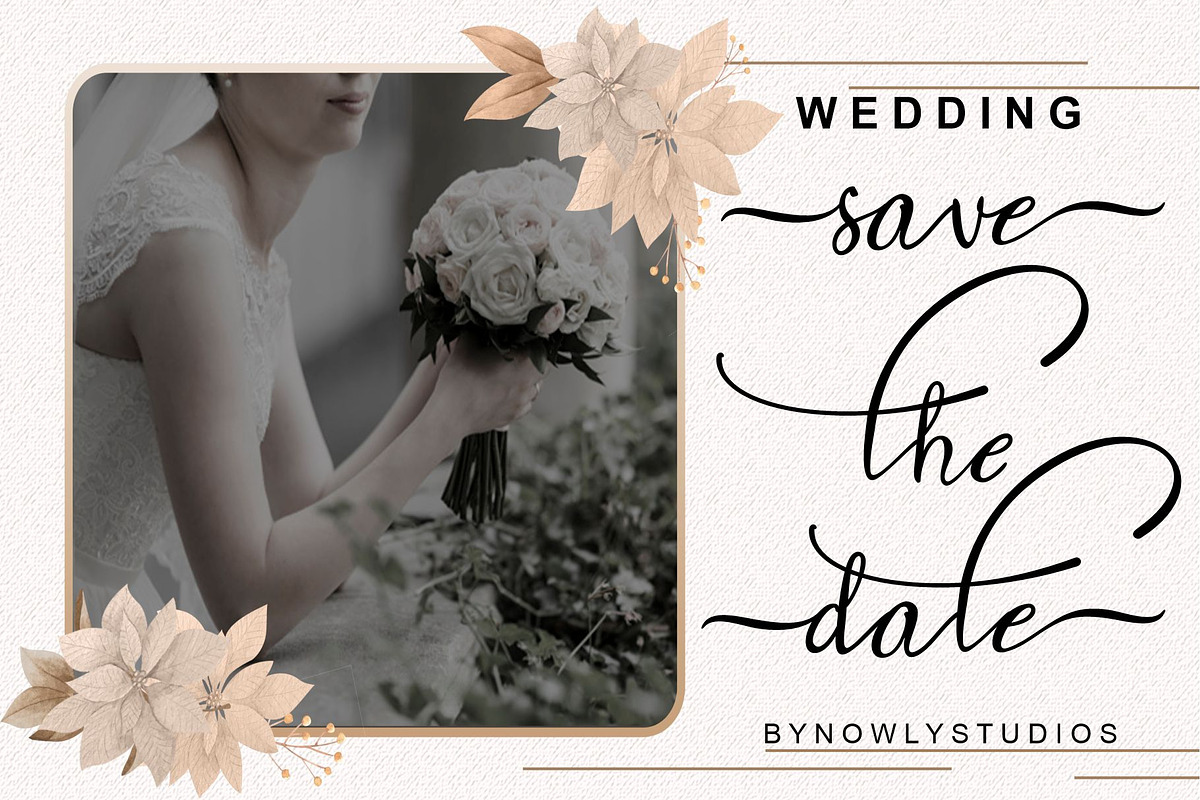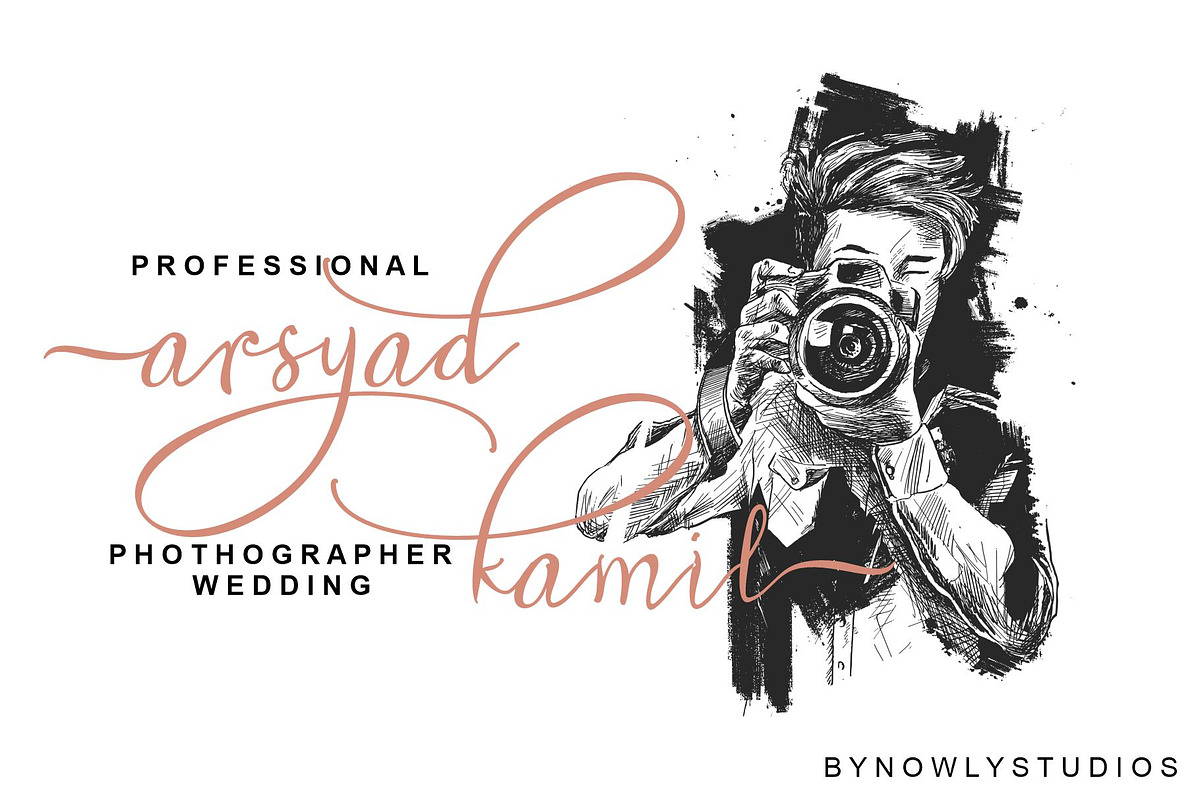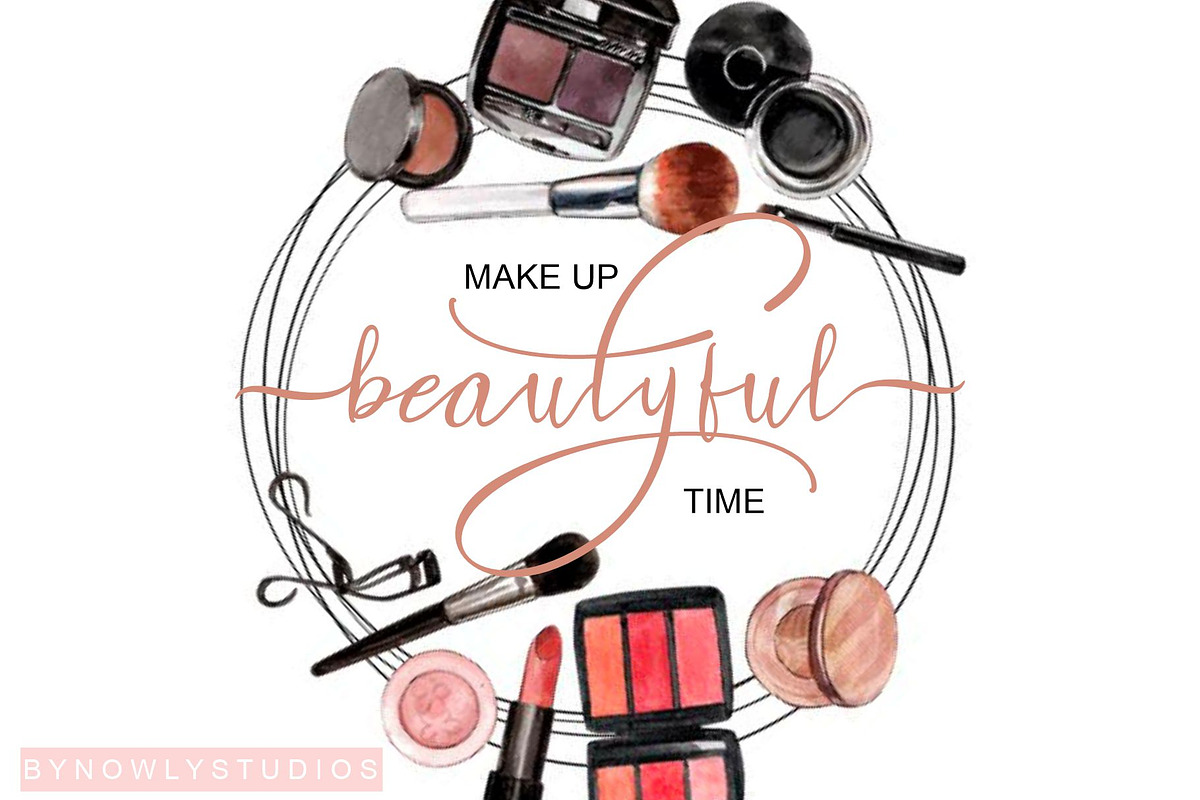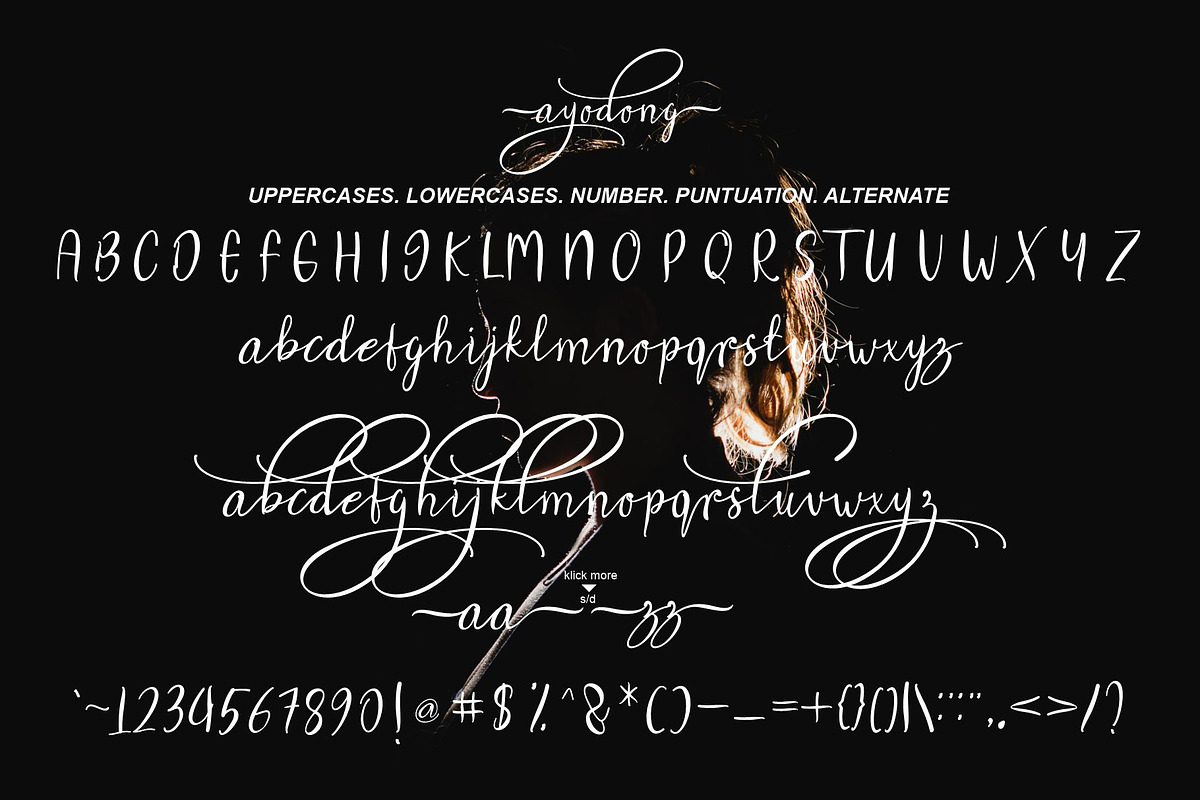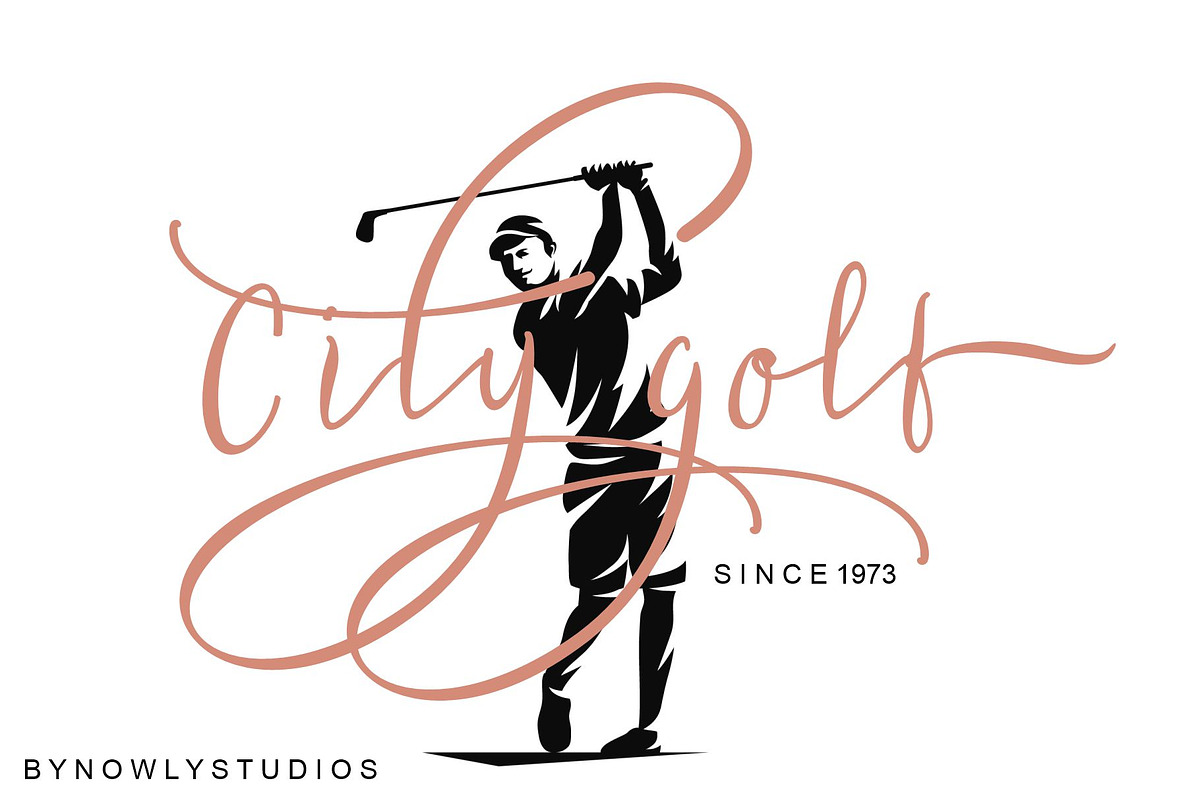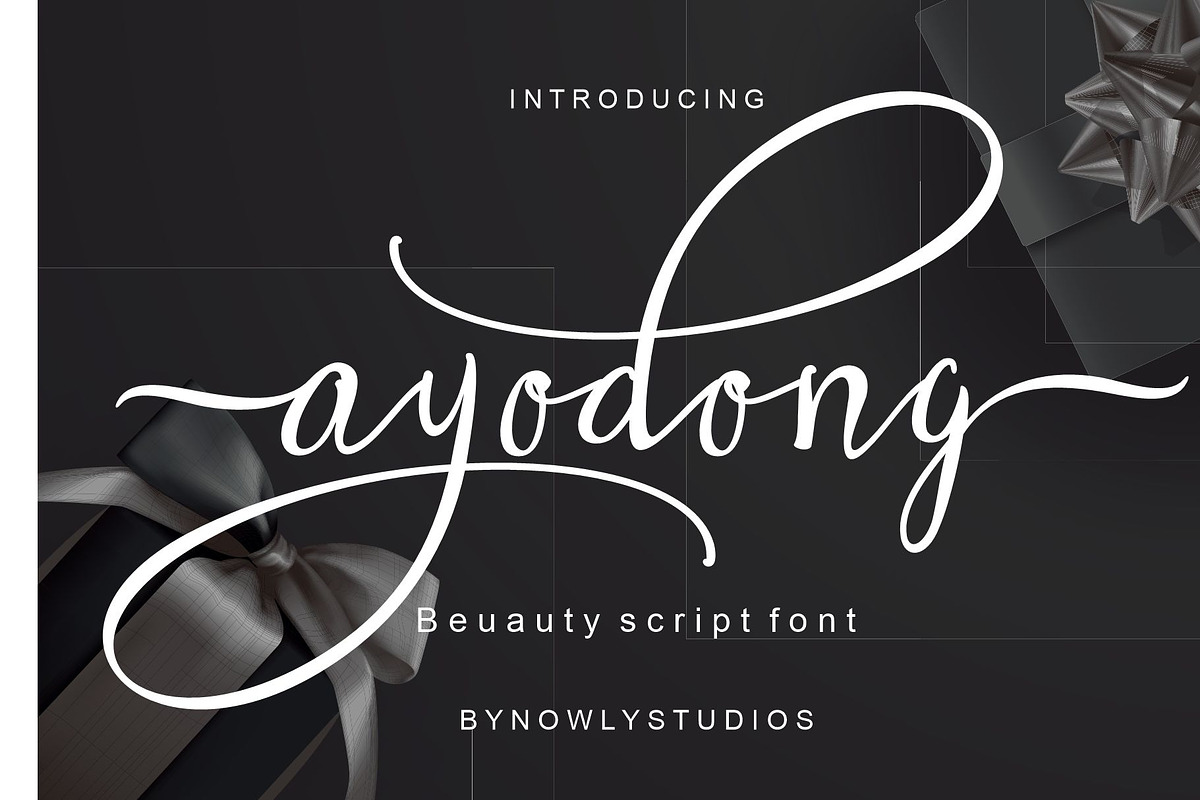
Ayodong Script
Ayodong is a delicate handwritten font that embodies the charm of elegance in every character. Use it for projects that require beautiful and romantic typography! This font is PUA-coded, which means you can access all the glyphs and swashes easily